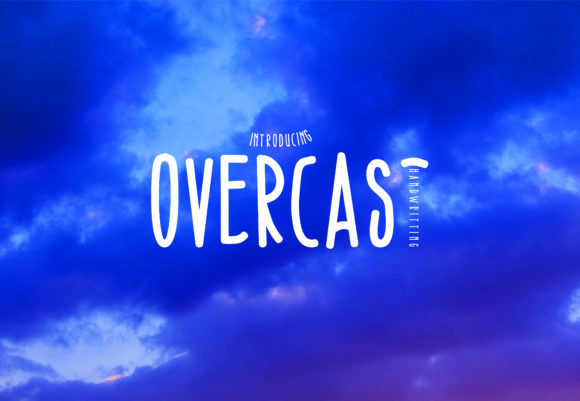
Prepare to be blown away by Overcast, the captivating sans serif font that will bring your creative visions to life. Crafted with meticulous attention to detail by the renowned Fype Co., Overcast exudes a timeless elegance that will elevate any design project.
Step into a world of boundless creativity with Overcast's effortlessly light and airy presence. Each character dances across the page with a graceful fluidity, adding a touch of whimsical charm to your words. Its open and inviting letterforms create a sense of spaciousness, allowing your message to breathe and captivate.
Overcast is more than just a font; it's an artistic expression that empowers you to convey your unique style. Whether you're designing eye-catching logos, captivating social media posts, or simply adding a touch of personality to your everyday documents, Overcast will transform your words into works of art.
With its versatile nature, Overcast adapts seamlessly to any design aesthetic. Its clean lines and understated elegance make it the perfect choice for minimalists, while its playful charm adds a touch of whimsy to more eclectic projects. Experiment with different sizes and weights to create captivating headlines, captivating body text, or simply add a touch of flair to your design elements.
Overcast is not just a tool; it's an invitation to unleash your creativity. Let its flowing curves and inviting letterforms inspire you to craft designs that resonate with your audience. Embrace the power of Overcast and watch your words blossom into captivating creations that leave an unforgettable impression.